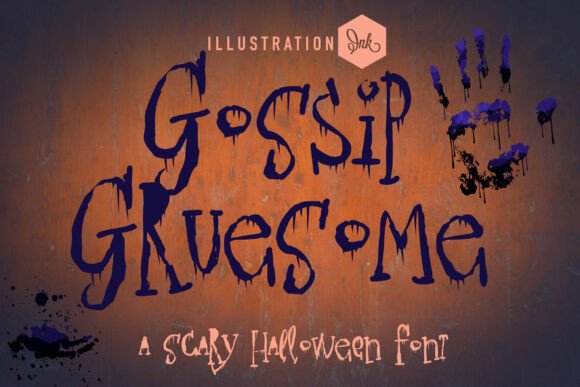
Gossip Gruesome Font: The Hand-Crafted Serif with a Drippy Blood Twist
In the world of typography, fonts play a crucial role in conveying the tone and personality of a message. Among the numerous font styles available, hand-crafted serif fonts have gained popularity for their unique and personalized touch. One such font that has caught attention is the Gossip Gruesome Font, a hand-crafted serif font that adds a drippy blood effect to its letters. In this article, we’ll explore the characteristics of hand-crafted serif fonts, the features of the Gossip Gruesome Font, and its potential uses.
What is a Hand-Crafted Serif Font?
A hand-crafted font is a type of font that is designed to mimic the look of handwriting. It is often created using a combination of traditional calligraphy techniques and digital tools. Hand-crafted fonts can range from formal and elegant to informal and playful, making them suitable for various applications. Some common uses of hand-crafted fonts include:
- Invitations and greeting cards: Hand-crafted fonts add a personal touch to special occasions, making them ideal for wedding invitations, birthday cards, and other celebratory events.
- Branding and advertising: Hand-crafted fonts can help businesses establish a unique identity and create a memorable brand image.
- Packaging and product design: Hand-crafted fonts can add a touch of personality to product labels, packaging, and marketing materials.
- Digital content: Hand-crafted fonts can be used in digital content, such as blog posts, social media graphics, and email newsletters, to add a personal and creative touch.
Characteristics of Hand-Crafted Serif Fonts
Hand-crafted serif fonts, like the Gossip Gruesome Font, have distinct characteristics that set them apart from other font styles. Some common features of hand-crafted serif fonts include:
- Unique letterforms: Hand-crafted fonts often feature unique and irregular letterforms that give them a personal and handmade feel.
- Variations in line width: Hand-crafted fonts may have varying line widths, which add to their handmade appearance.
- Serif details: Serif fonts, including hand-crafted serifs, feature small lines or flourishes at the ends of the letters.
- Emphasis on aesthetics: Hand-crafted fonts prioritize aesthetics, often featuring decorative elements, such as swashes or ligatures.
Introducing the Gossip Gruesome Font
The Gossip Gruesome Font is a hand-crafted serif font that adds a touch of horror to its letters. This font features:
- Drippy blood effect: The Gossip Gruesome Font includes a drippy blood effect that gives it a gruesome and eerie feel.
- Hand-crafted letterforms: Each letterform in the Gossip Gruesome Font is carefully crafted to resemble handwriting.
- Serif details: The font features traditional serif details, including small lines and flourishes at the ends of the letters.
- Unique character: The Gossip Gruesome Font has a distinct and memorable character that makes it suitable for creative projects.
Potential Uses of the Gossip Gruesome Font
The Gossip Gruesome Font’s unique features make it suitable for various creative projects, including:
- Horror-themed content: The font’s drippy blood effect and gruesome feel make it ideal for horror-themed content, such as movie posters, book covers, or Halloween invitations.
- Music and entertainment: The Gossip Gruesome Font’s edgy and creative vibe makes it suitable for music and entertainment-related projects, such as album covers, concert posters, or social media graphics.
- Fashion and lifestyle: The font’s bold and eye-catching design makes it suitable for fashion and lifestyle-related projects, such as fashion magazine covers, clothing labels, or accessories.
- Digital content: The Gossip Gruesome Font can add a creative and attention-grabbing touch to digital content, such as blog posts, social media graphics, or email newsletters.
Tips for Using the Gossip Gruesome Font
To get the most out of the Gossip Gruesome Font, consider the following tips:
- Use it sparingly: Due to its bold and attention-grabbing design, it’s best to use the Gossip Gruesome Font sparingly to avoid overwhelming the reader.
- Pair it with contrasting fonts: Pair the Gossip Gruesome Font with contrasting fonts to create visual interest and balance.
- Adjust font size and color: Experiment with different font sizes and colors to find the perfect combination for your project.
- Be mindful of legibility: While the Gossip Gruesome Font is designed to be eye-catching, ensure that it remains legible, especially for body text.
The Gossip Gruesome Font is a unique and creative hand-crafted serif font that adds a touch of horror to its letters. With its drippy blood effect and hand-crafted letterforms, this font is suitable for various creative projects, from horror-themed content to music and entertainment-related projects. By understanding the characteristics of hand-crafted serif fonts and following tips for using the Gossip Gruesome Font, designers and creatives can effectively incorporate this font into their work and create memorable and attention-grabbing designs.